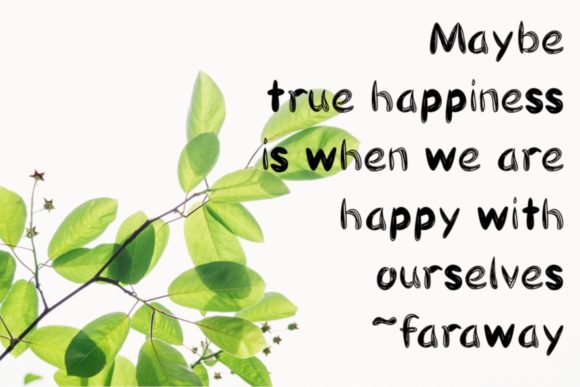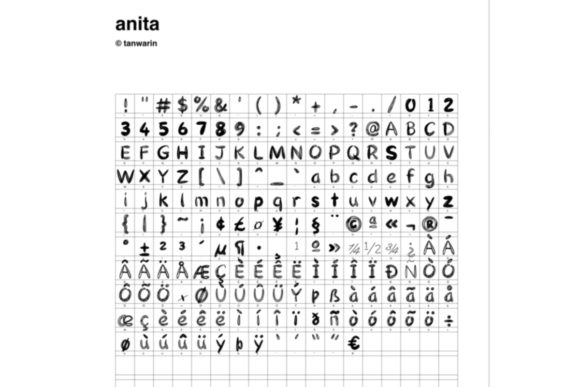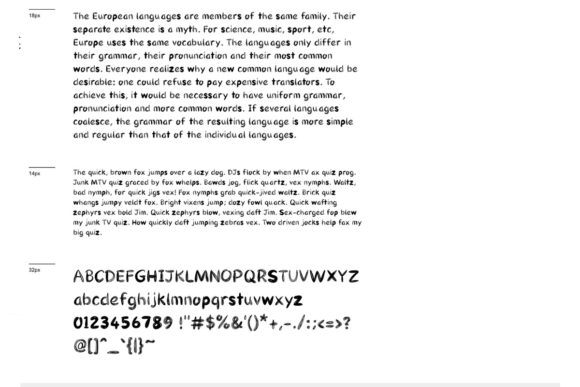
The Quest for the Perfect Font: Discovering Anita
I still remember the design project that led me to discover the lovely Anita font. I was working on a children’s party invitation, and my client wanted a font that was playful, friendly, and utterly charming. I spent hours scouring font websites, but nothing seemed quite right – until I stumbled upon Anita. Its sweet, childish style won me over, and I’ve been hooked ever since.
An Honest Review of Anita Font
What I Love About Anita ✨
- ✅ Cute and friendly handwritten style that’s perfect for informal designs
- ✅ Works beautifully for both digital and print projects
- ✅ Supports multiple languages
- ⚠️ May not be suitable for formal or professional designs, as it can come across as too playful
- ⚠️ Limited availability of bold or italic variations
The Story Behind Anita Font
Anita was designed by a talented font creator who wanted to craft a font that was both playful and elegant. Inspired by childhood memories of handwritten notes and letters, Anita’s designer aimed to create a font that would evoke a sense of nostalgia and warmth. The result is a font that’s perfect for a wide range of creative projects, from party invitations to blog posts.
| Font Name | Anita Font |
| Author | Temtemdesign |
| Q: What type of projects is Anita best suited for? | A: Anita is ideal for informal or casual designs, such as party invitations, blog posts, and social media graphics. |
| Q: Does Anita support OpenType features? | A: Yes, Anita supports OpenType features, including glyphs and stylistic alternates. |